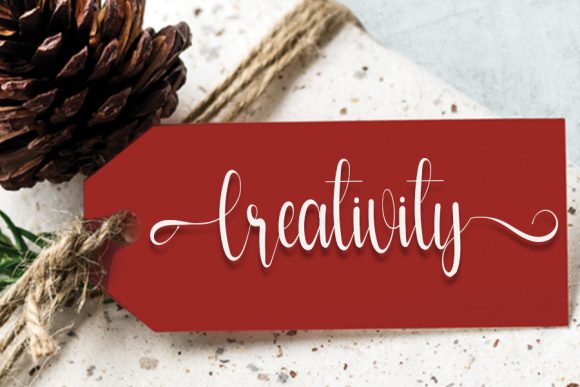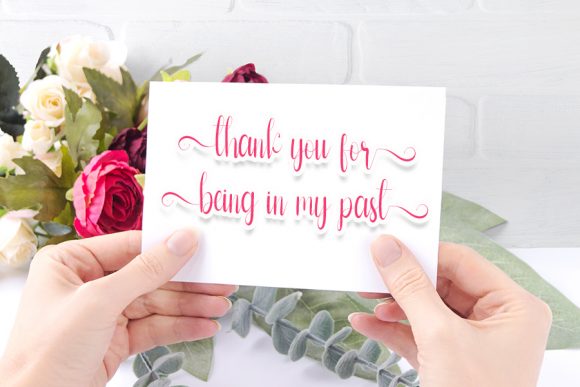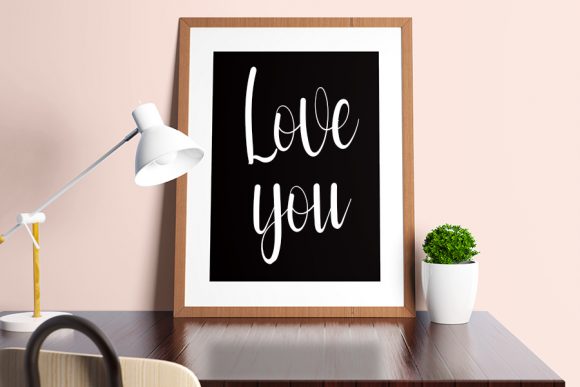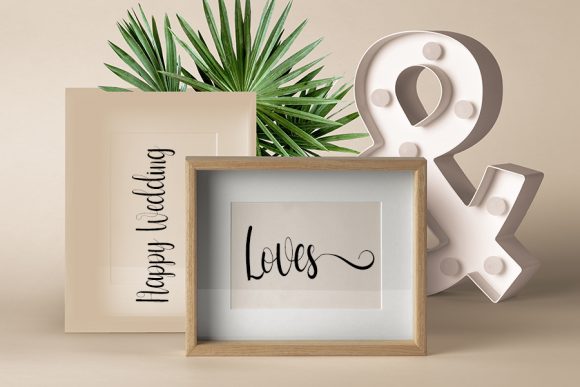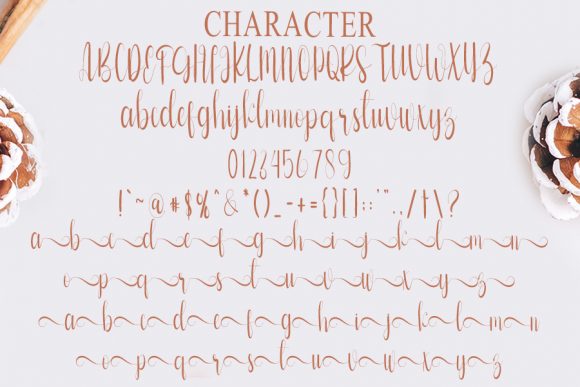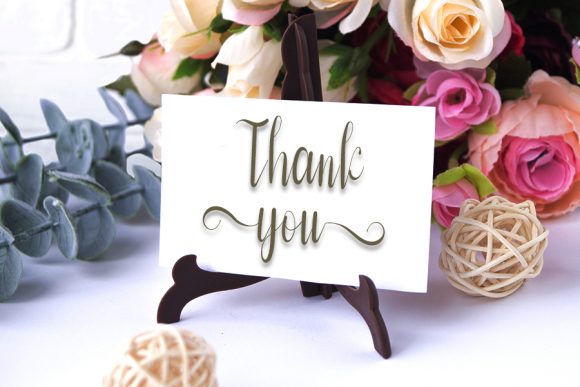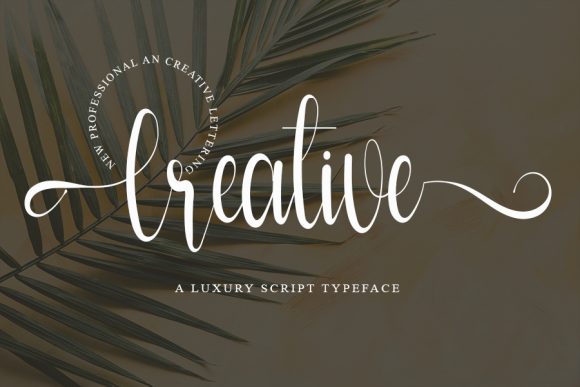
Unlocking the Power of Creative Font: Elevate Your Designs with Luxurious Calligraphy
In the world of design, fonts play a pivotal role in conveying messages, evoking emotions, and creating lasting impressions. Among the myriad of fonts available, Creative Font stands out as a luxurious and flowing calligraphy font that has captured the hearts of designers and crafters alike. This stunning font is not just a typographical choice; it’s an artistic statement that can elevate your designs to new heights. In this article, we’ll delve into the features and benefits of Creative Font, exploring why it’s the best choice for creating eye-catching logos, branding, and quotes.
The Essence of Creative Font
Creative Font is a masterpiece of calligraphy, characterized by its fluid strokes, elegant swashes, and sophisticated charm. This font is meticulously crafted to add a touch of luxury and refinement to any design project. Whether you’re working on a logo, branding materials, or inspirational quotes, Creative Font brings a level of sophistication that is hard to match.
One of the standout features of Creative Font is its PUA (Private Use Area) encoding. This means that the font includes a wide range of glyphs and swashes that can be easily accessed and used to enhance your designs. PUA encoding allows designers to tap into a vast library of special characters, making it incredibly versatile for various design applications. With Creative Font, you can effortlessly add intricate details and flourishes to your work, giving it a unique and personalized touch.
Ideal for Logos, Branding, and Quotes
Creative Font is specifically designed to make a statement. Its luxurious and flowing script is perfect for:
• Logos: Create memorable and impactful logos that reflect your brand’s personality and values.
• Branding: Elevate your brand’s visual identity with a font that exudes elegance and sophistication.
• Quotes: Add a touch of class to inspirational and motivational quotes, making them perfect for social media, posters, or digital platforms.
Creative Font offers numerous benefits for designers and crafters, including:
• Time-Saving: With its extensive range of glyphs and swashes, Creative Font saves you time and effort in creating custom designs from scratch.
• Versatility: The font’s versatility means you can use it across various design projects, from digital graphics to print materials.
• Professional Look: Achieve a professional and polished look in your designs without needing extensive typography skills.
Tips for Using Creative Font Effectively
To make the most of Creative Font, consider the following tips:
• Mix and Match: Experiment with different glyphs and swashes to create unique combinations that reflect your brand’s personality.
• Play with Sizes: Use varying font sizes to create visual hierarchy and emphasize key messages.
• Pair with Simplicity: Balance Creative Font with simpler fonts to ensure your design remains clear and readable.
Creative Font is more than just a calligraphy font; it’s a design powerhouse that can transform your projects with its luxurious and flowing script. With its PUA encoding, extensive glyph library, and versatility, it’s an indispensable tool for designers and crafters looking to create eye-catching logos, branding, and quotes. Unlock the full potential of your designs with Creative Font and experience the elegance and sophistication it brings to your work.